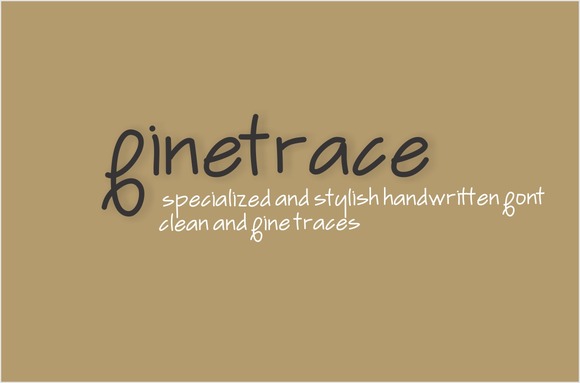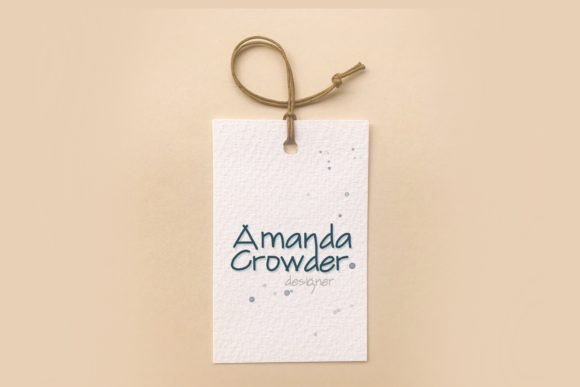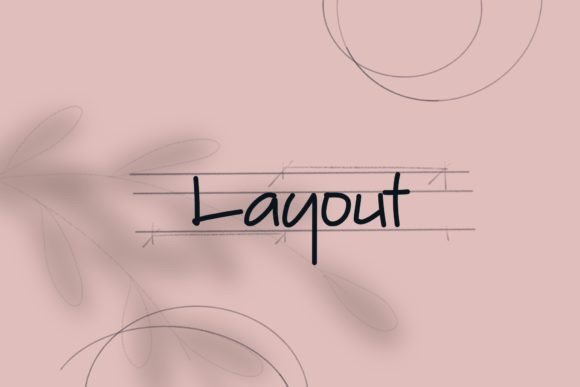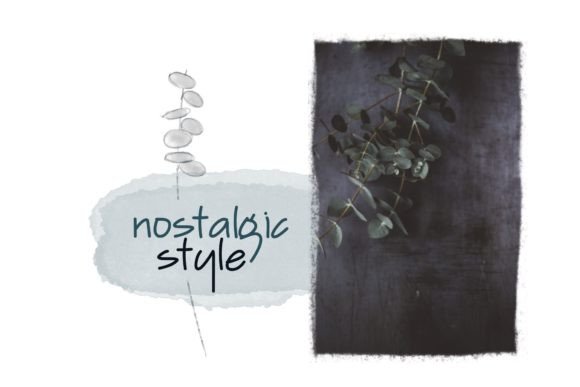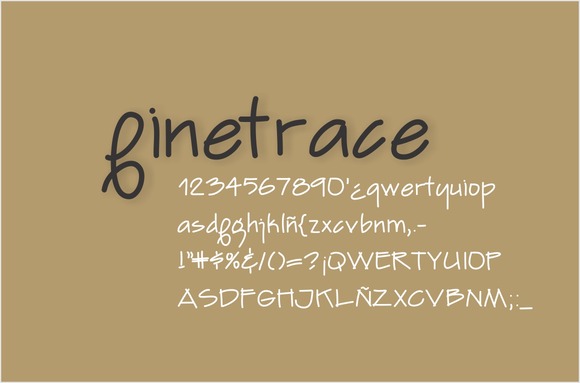
Finetrace Font
Finetrace is a stylish handwritten font with clean and fine traces. It can be used for various purposes such as headings, logos, invitations, t-shirt designs, greeting cards, posters, labels, book covers, brochures, and much more!